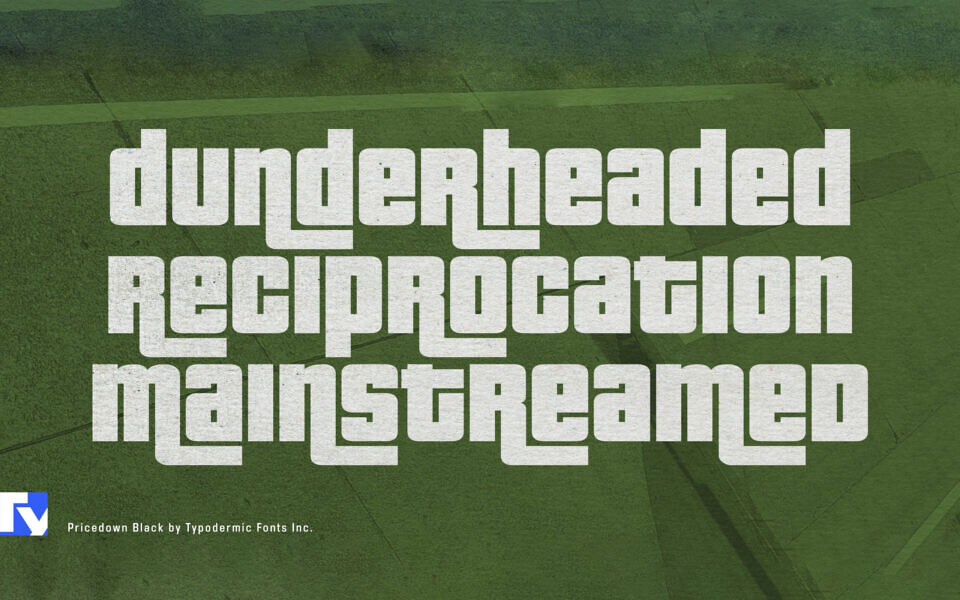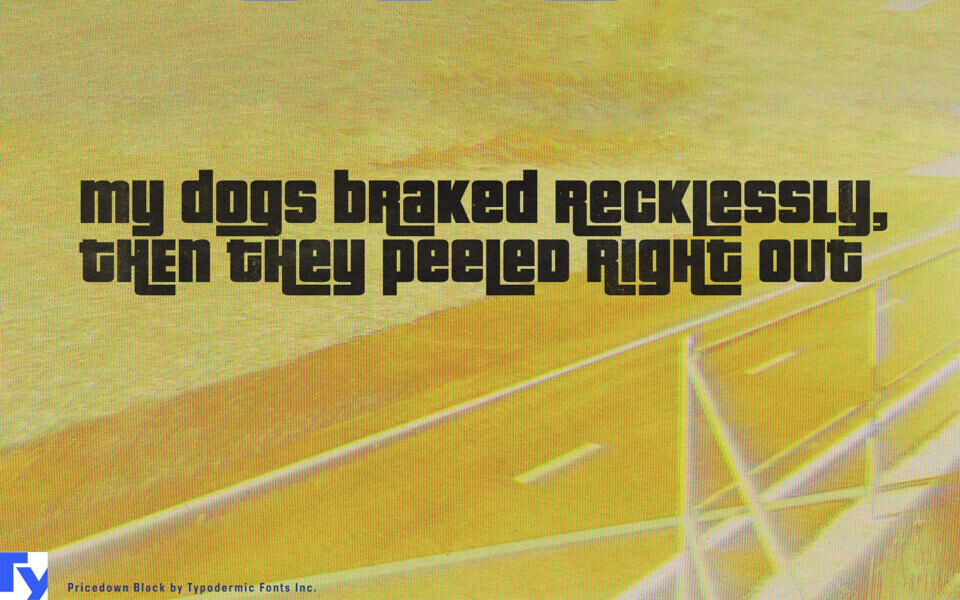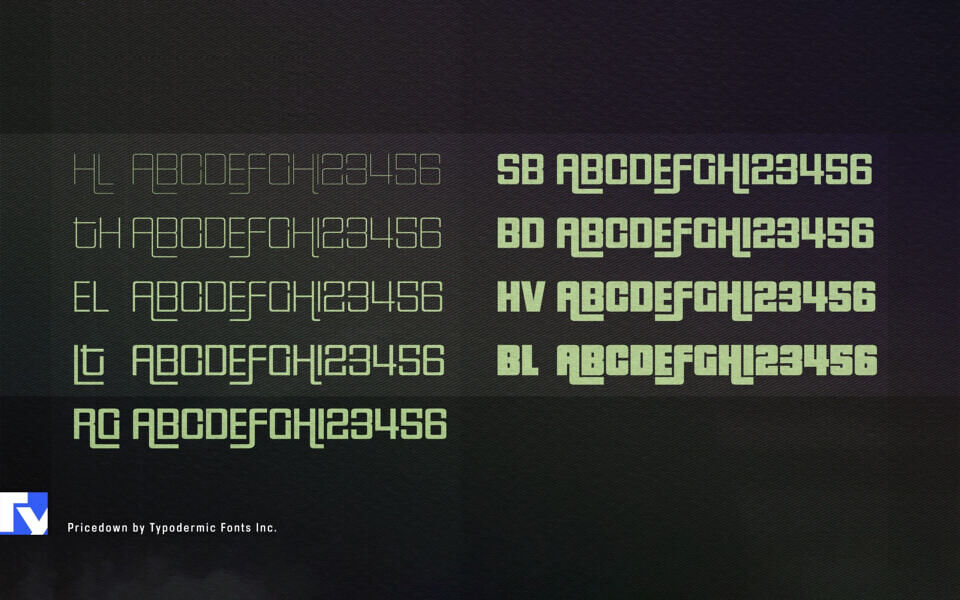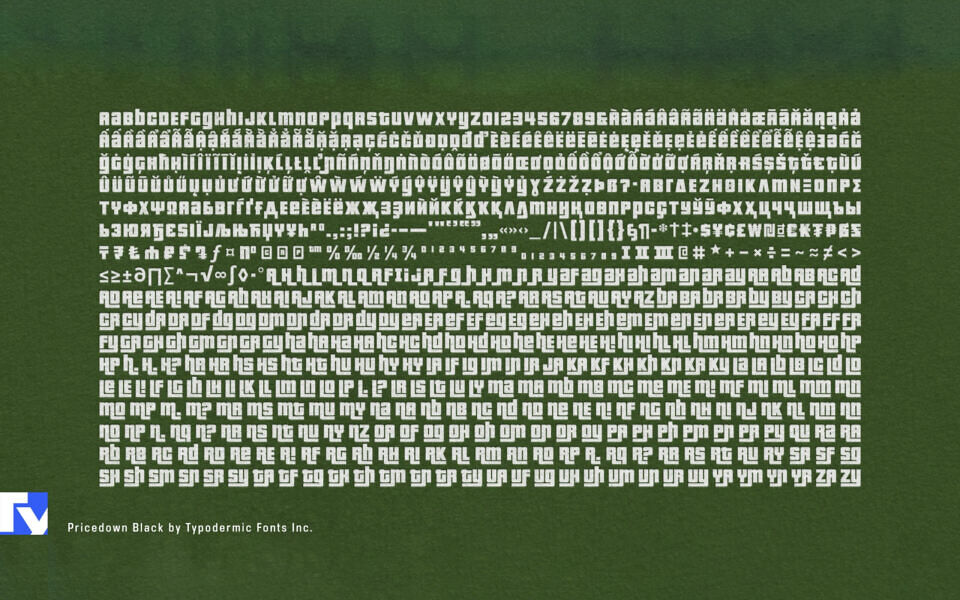
Step right up, folks! Pricedown is more than just a typeface—it’s a time machine disguised as letters, ready to transport your designs back to the golden age of game shows and arcade thrills. Pricedown struts onto your screen with all the bravado of a contestant eyeing that showcase showdown.
But Pricedown isn’t content to rest on its retro laurels. Oh no, this typeface plays games with your expectations. Activate those OpenType features, and watch as characters interlock like long-lost puzzle pieces. That swash tail on the “H” sneaking under the “I”? It’s not just a ligature—it’s typographic choreography, a little dance of delight right there on your page. With nine weights at your disposal, Pricedown is like having an entire variety show cast at your fingertips. Go bold and brash for headlines that scream “New car!” or dial it back for body text that purrs “Actual retail price.” The versatility is so good, you’ll want to trademark it.
Fun fact: This font is inspired by the logo of the acclaimed Grand Theft Auto (GTA) video game series. So if you’re looking for the GTA logo font, this might be your answer.